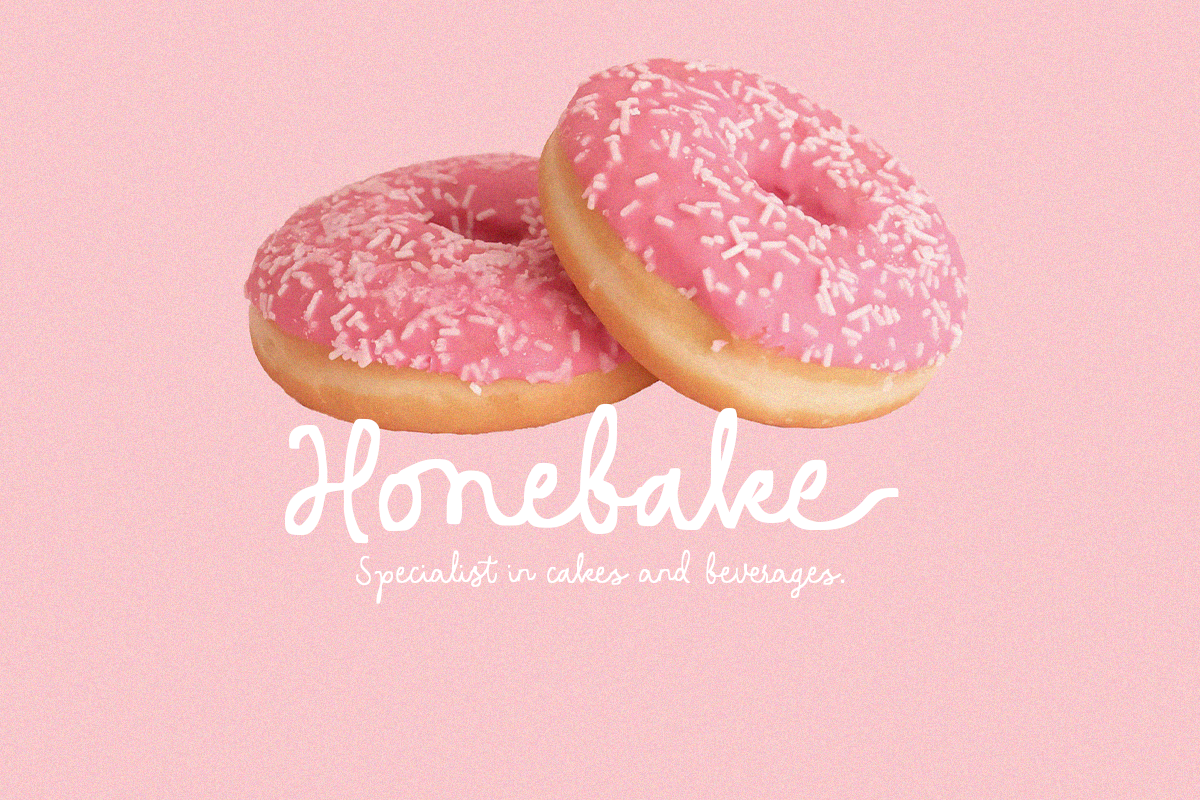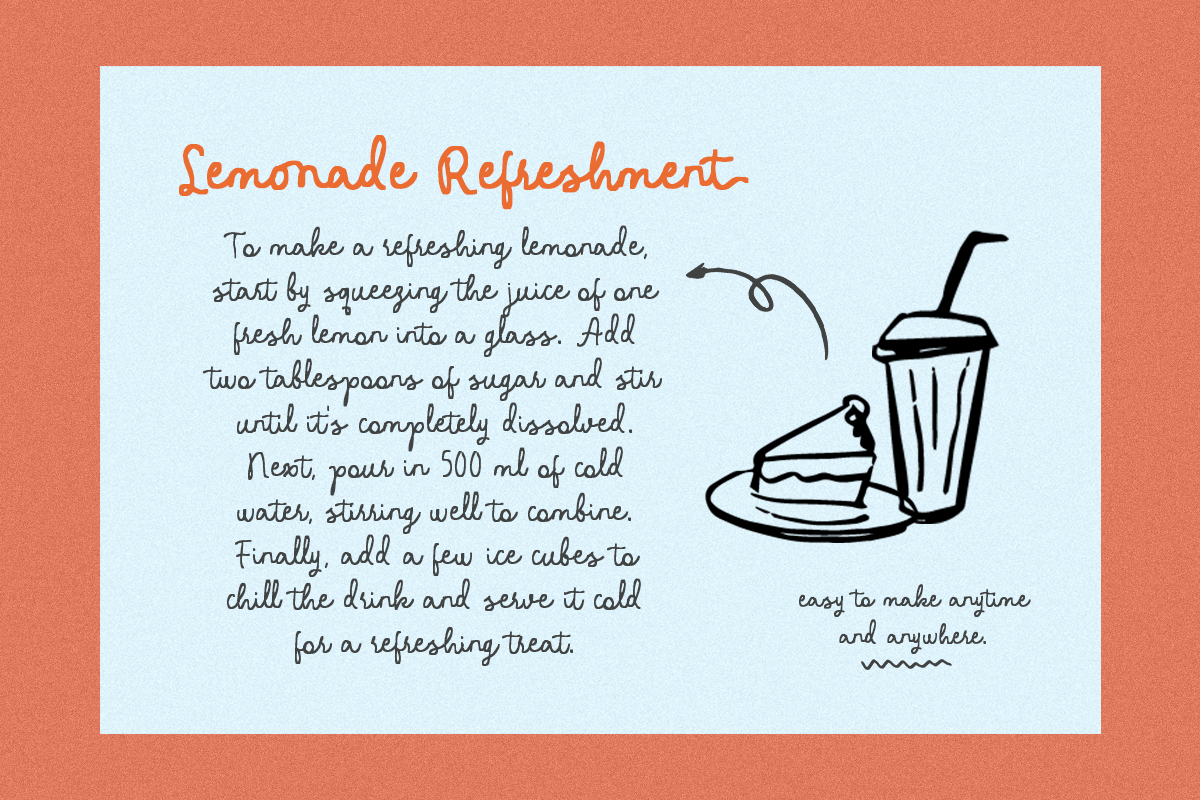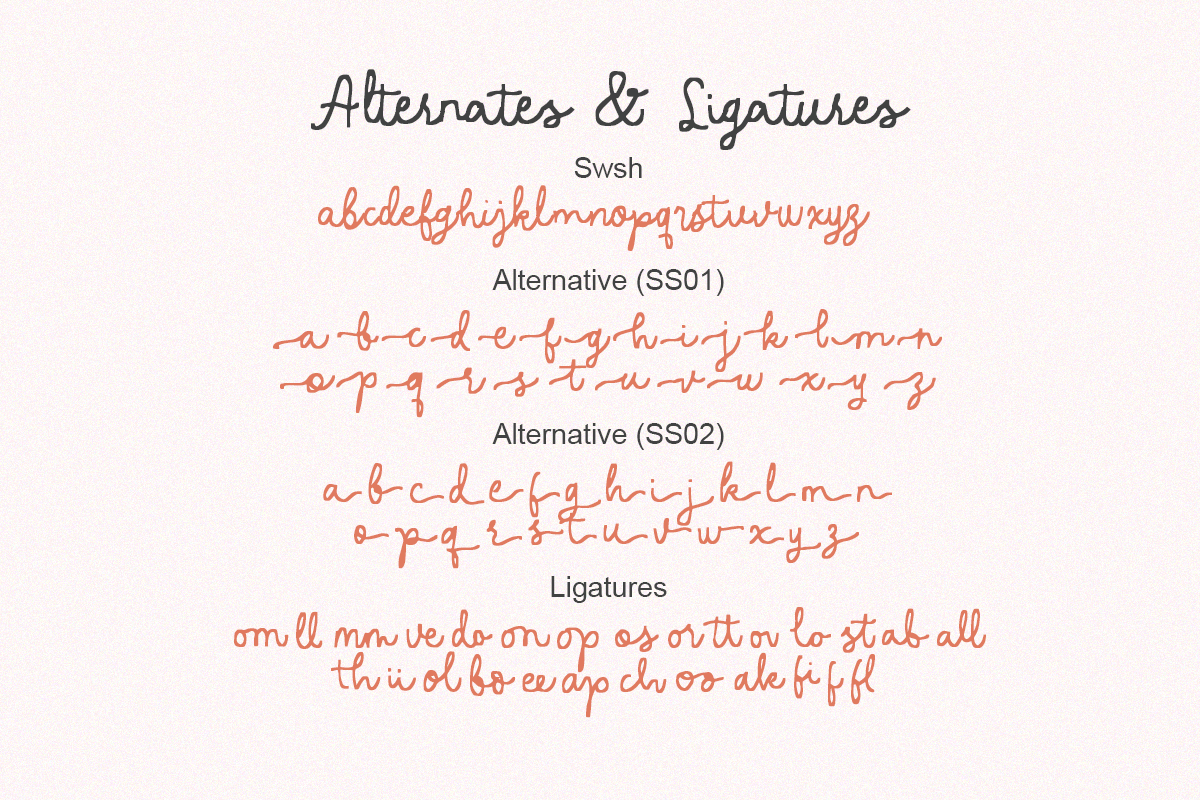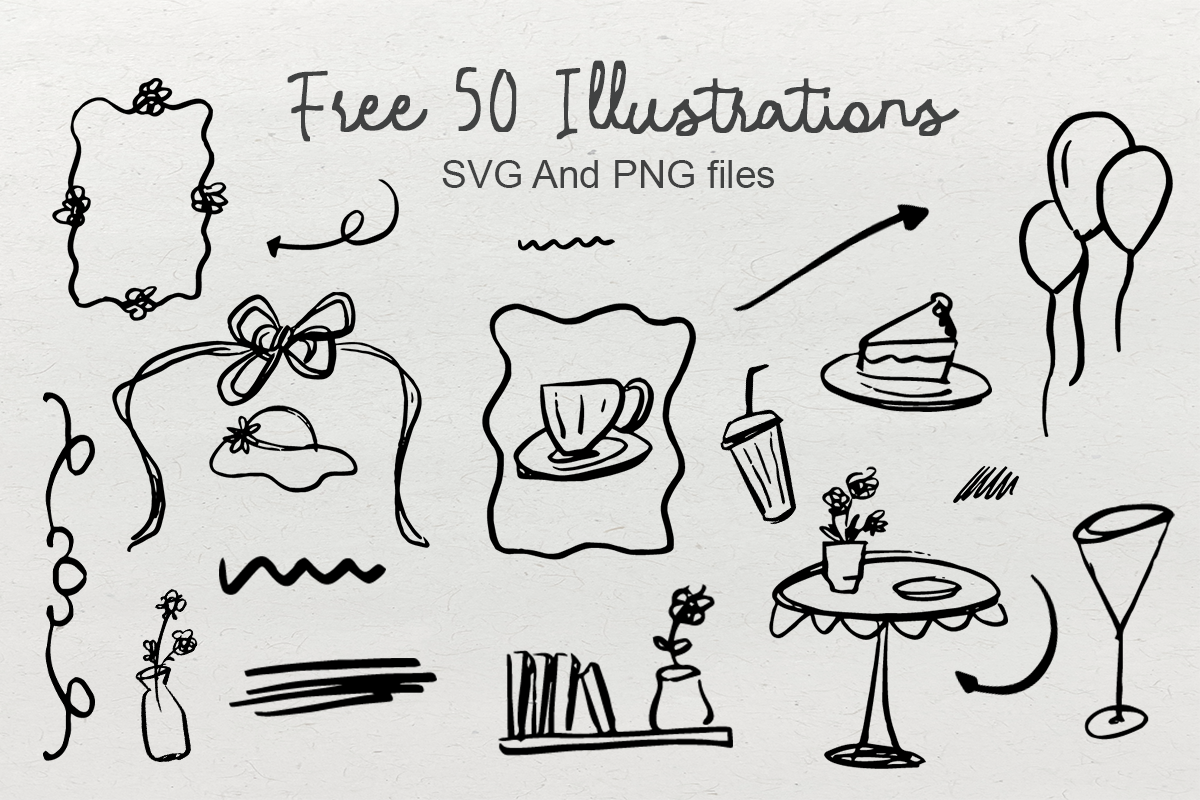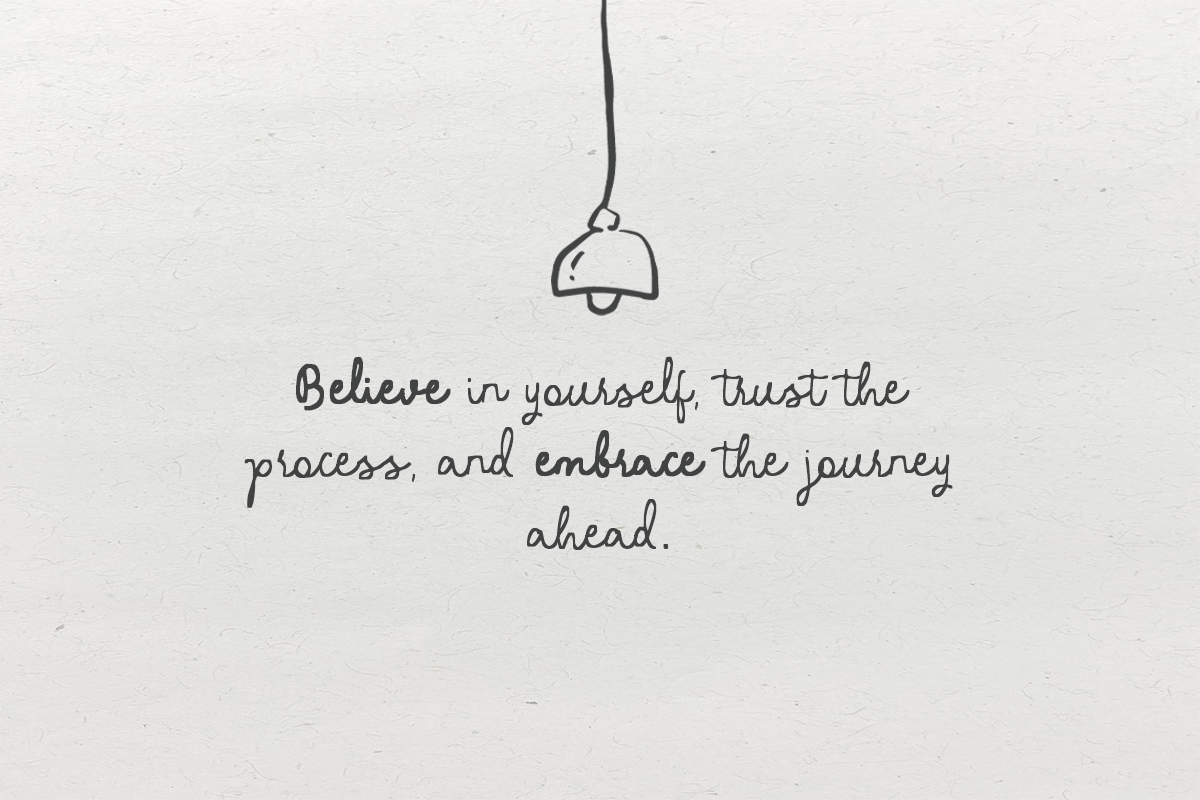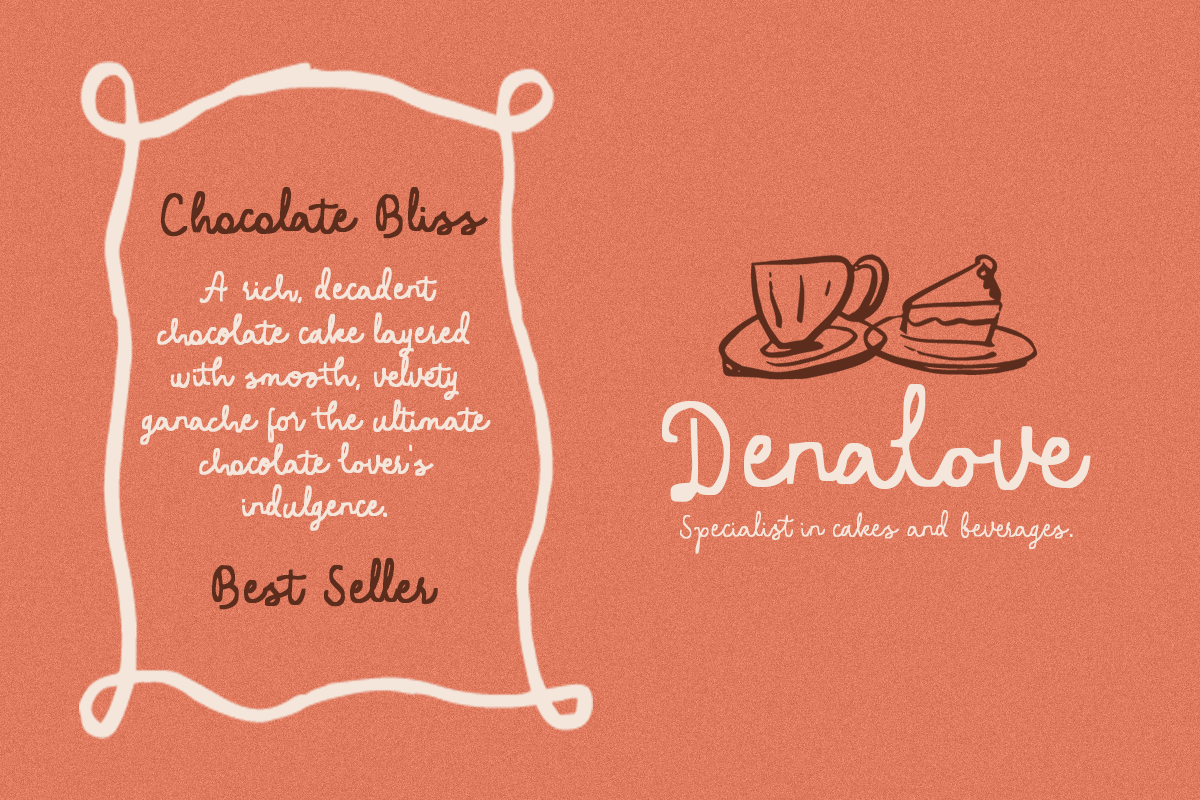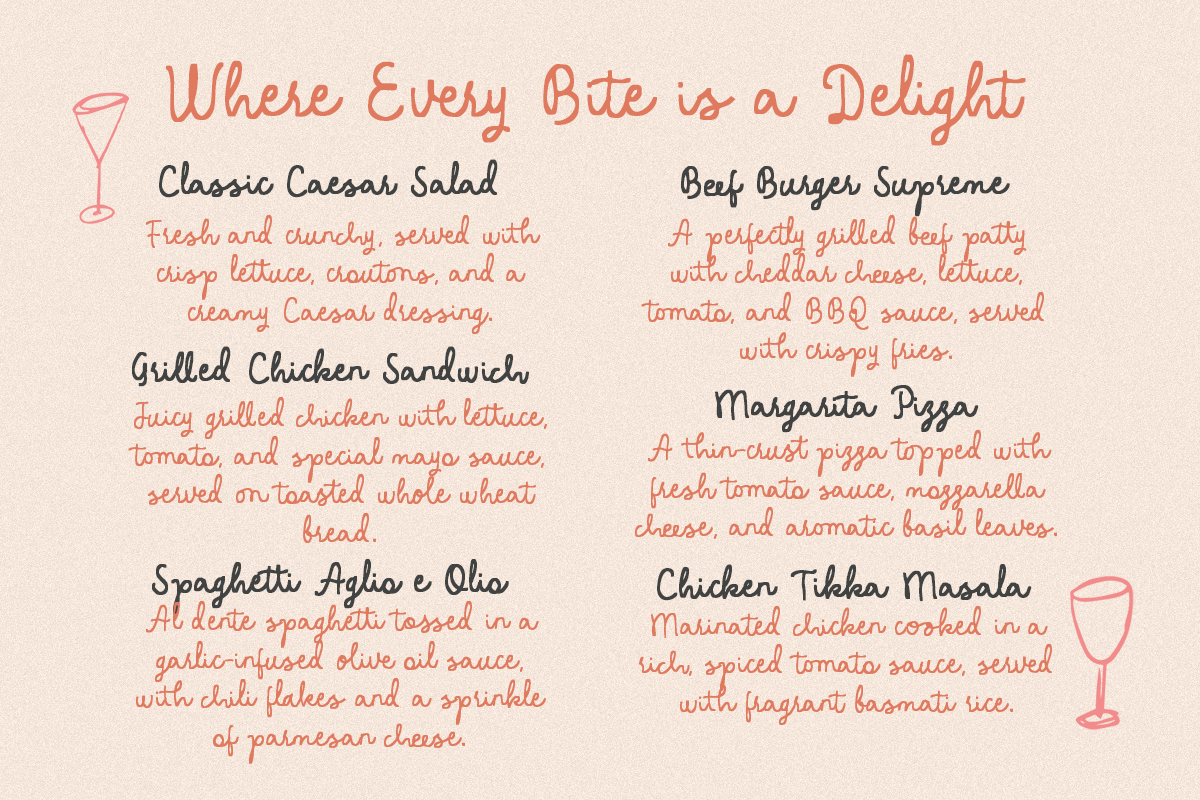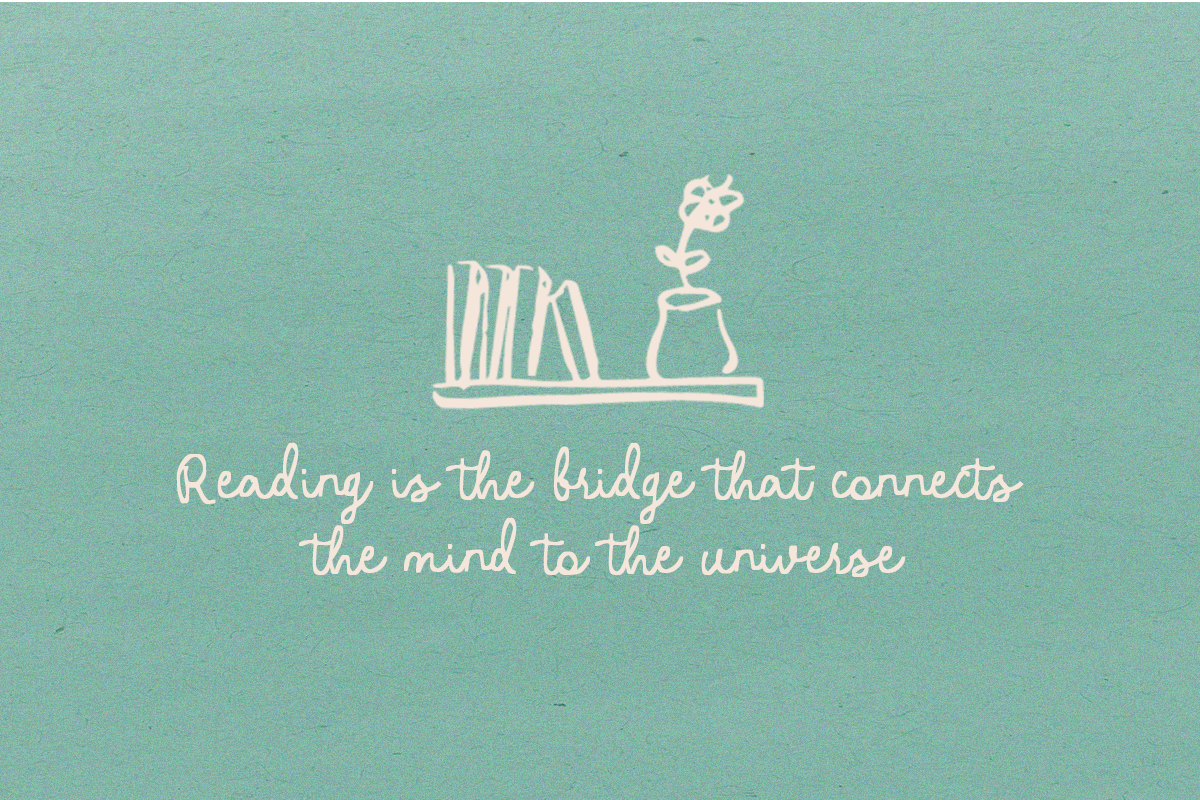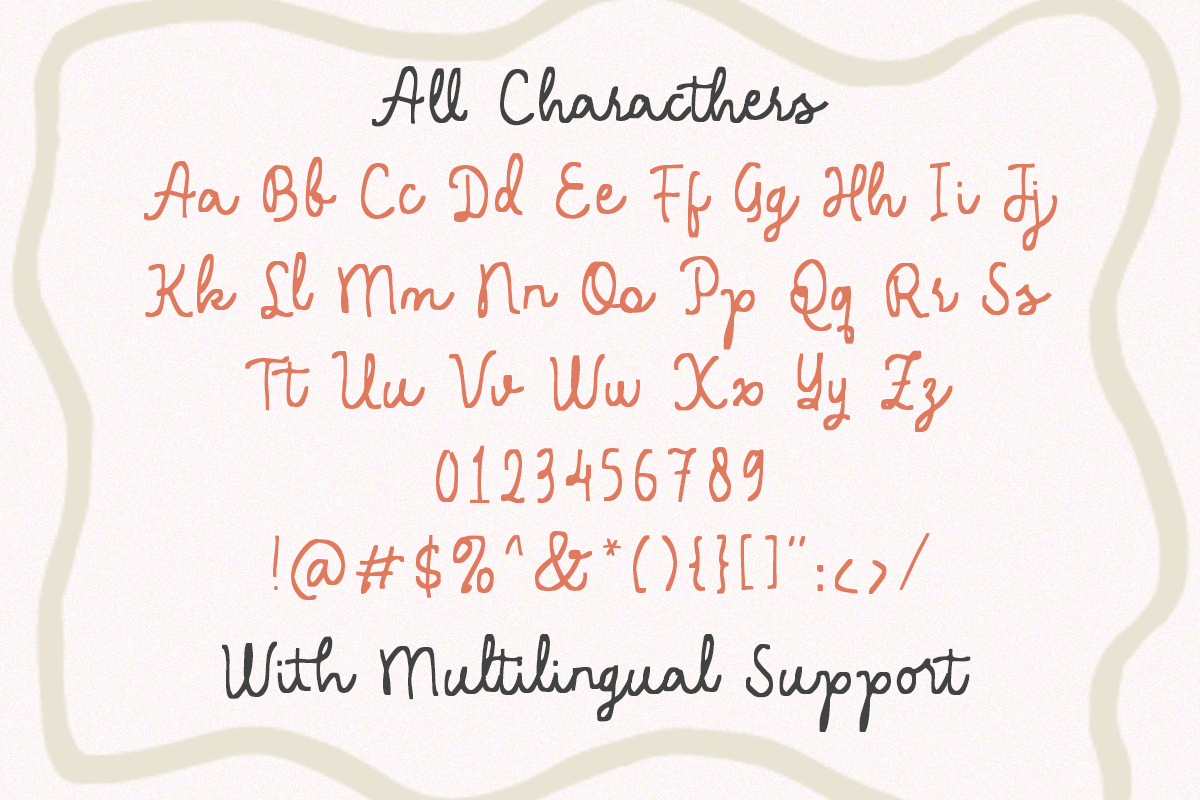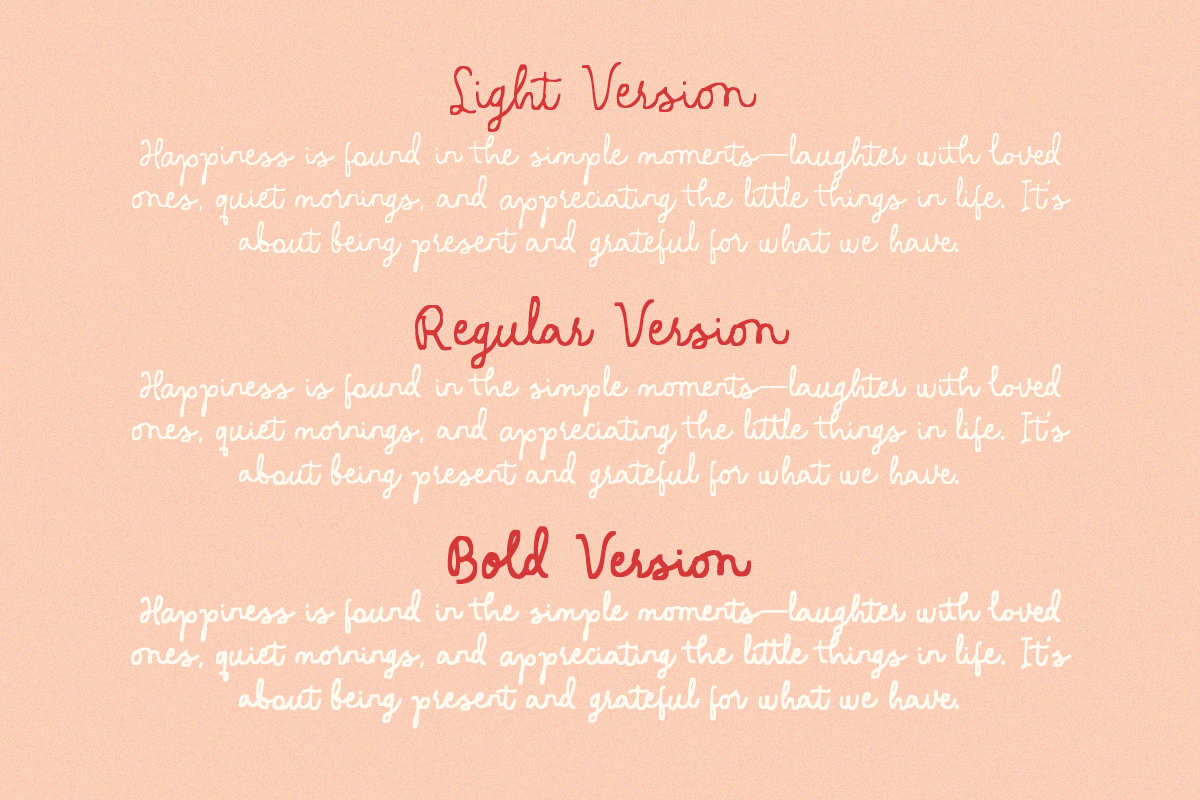
Penny Scribbles - Handwritten Family
Penny Scribbles
Penny Scribbles is a handwritten font family with playful, messy strokes that resemble a child's handwriting, yet with a modern touch. This font is perfect for designs with a whimsical, childlike vibe, such as food menus, recipes, and more.
What's even more special is that you'll also receive 50 unique illustrations to pair with your font or use for other design needs. The files are provided in both SVG and PNG formats.